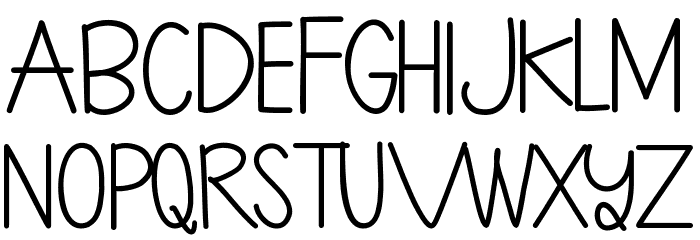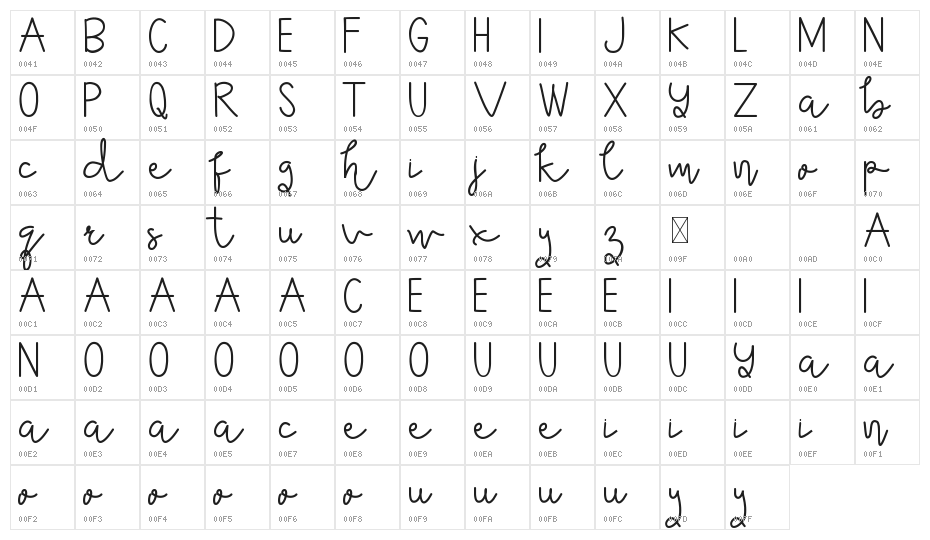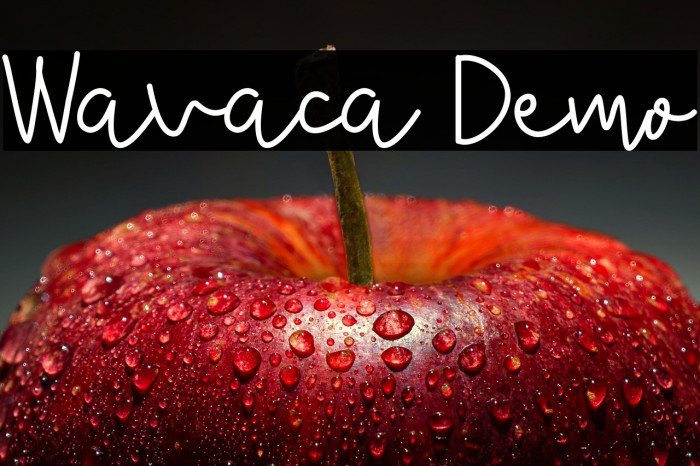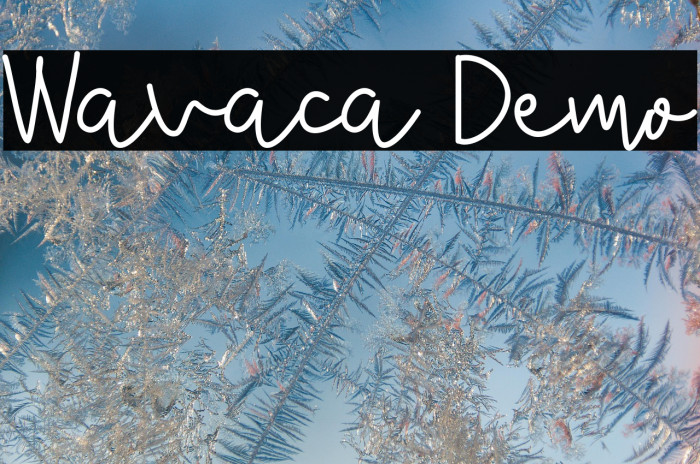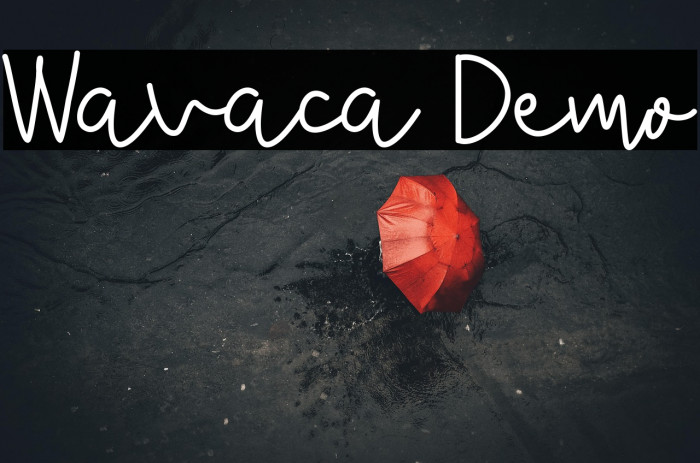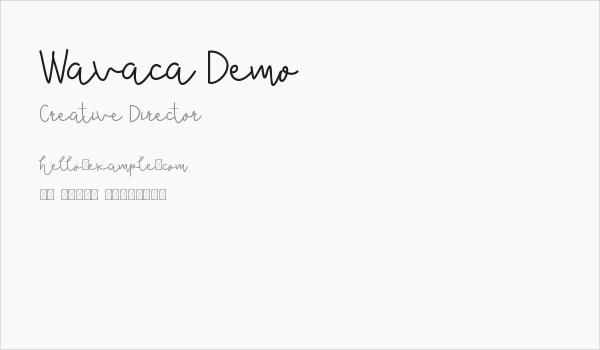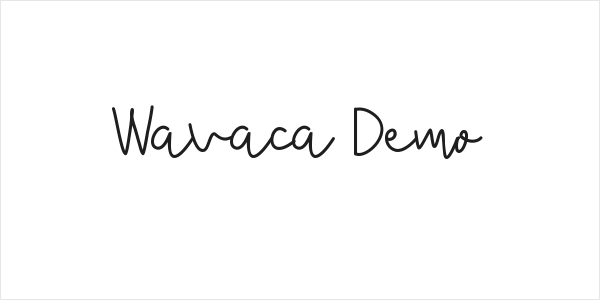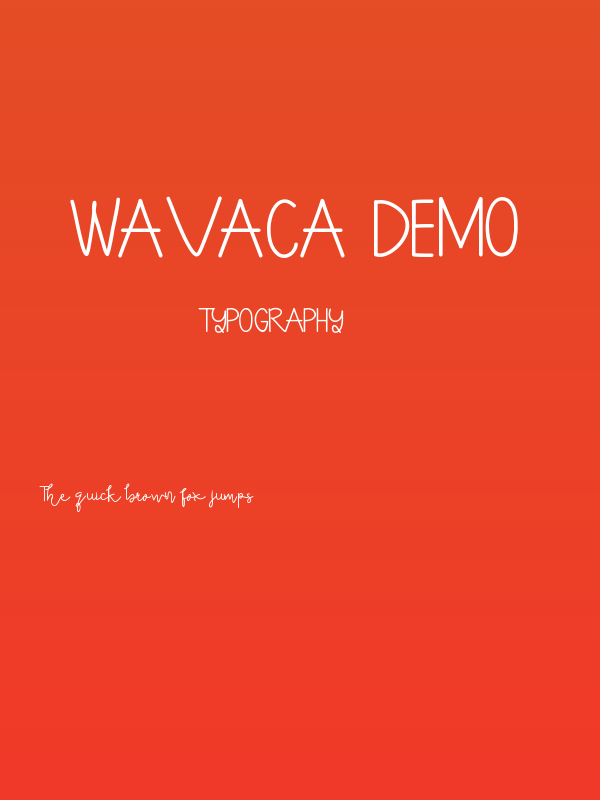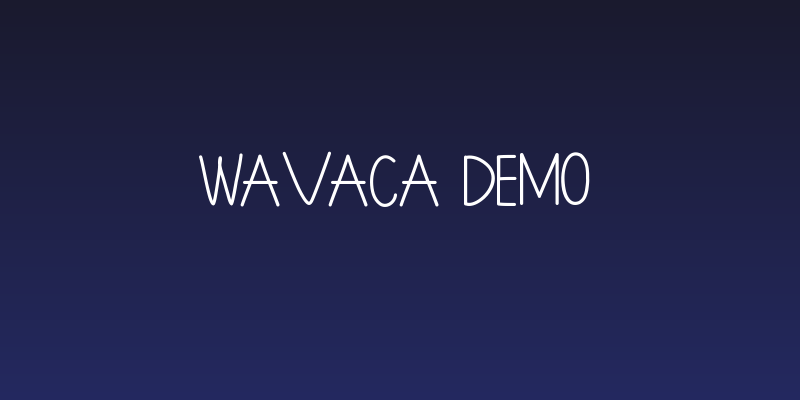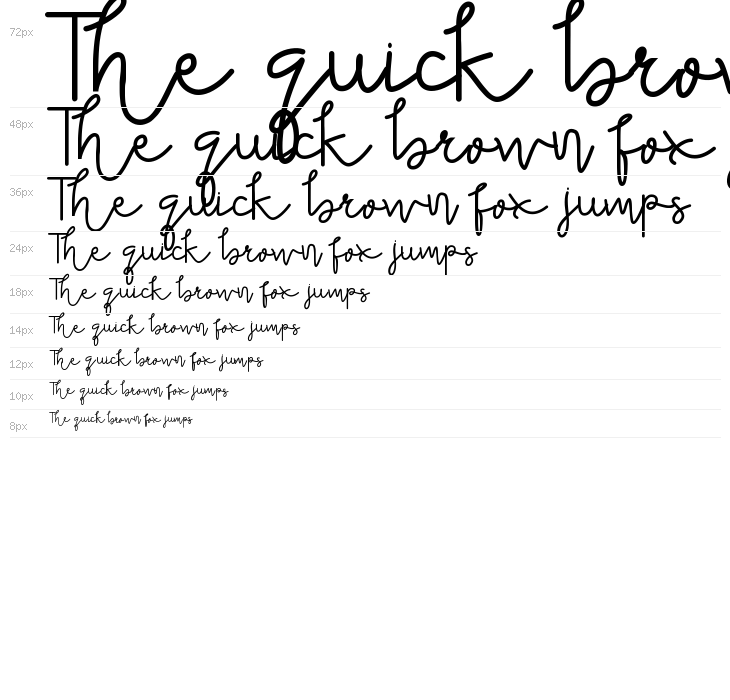
Wavaca Demo Font
Wavaca Demo Description
This font features a playful and casual handwritten style, characterized by its smooth, flowing lines and slightly irregular shapes. The uppercase letters are tall and narrow, giving a sense of elegance and sophistication, while the lowercase letters maintain a consistent, rounded form that adds a touch of whimsy. The font's overall appearance is clean and modern, with a slight tilt that enhances its dynamic feel. The characters are evenly spaced, ensuring readability and balance. This font is versatile, suitable for a variety of design projects that require a personal and approachable touch.